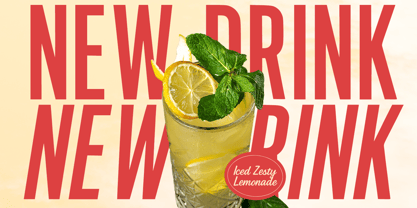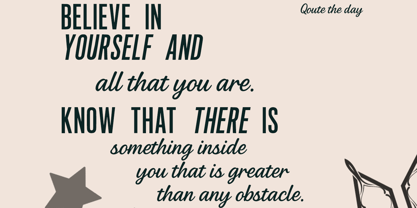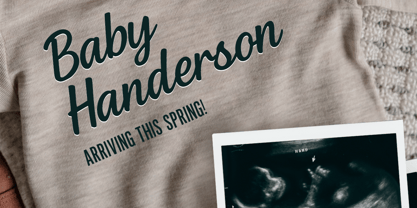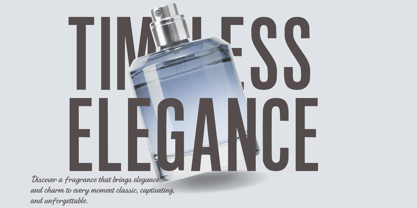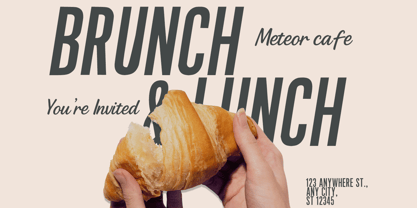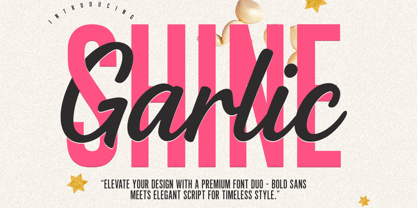
Garlic Shine
Die Schriftfamilie Garlic Shine wurde von Muhammad Zaini entworfen und von Cocodesign veröffentlicht. Garlic Shine enthält 4 Stile und Familienpaketoptionen.
Shine Garlic – Font Duo
Shine Garlic is a versatile font duo that brings together the confidence of a bold modern sans and the charm of an elegant handwritten script. Designed for balance and contrast, this pairing offers endless possibilities for creating eye-catching typography.
From branding and packaging to editorial layouts and social media graphics, Shine Garlic adapts effortlessly to a wide range of design needs. The bold sans provides clarity and impact, while the script adds a touch of sophistication and warmth.
• Uppercase & Lowercase
• Numbers & Punctuation
• Bold Sans + Script Styles
• Multilingual Support
With its combination of strength and elegance, Shine Garlic is an ideal choice for projects that require both modern appeal and timeless style.